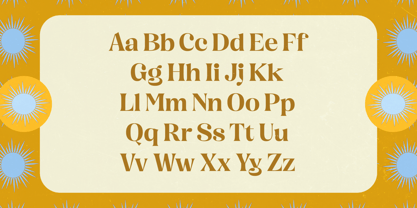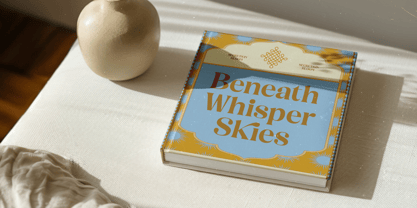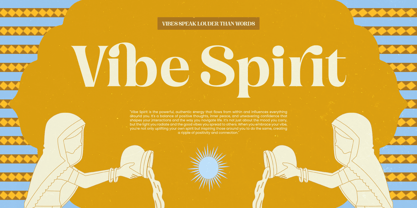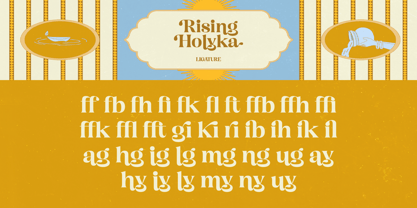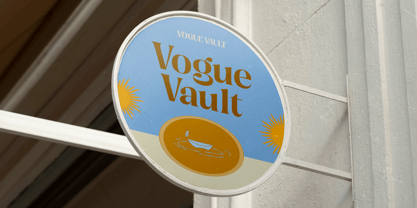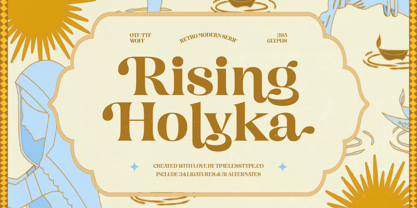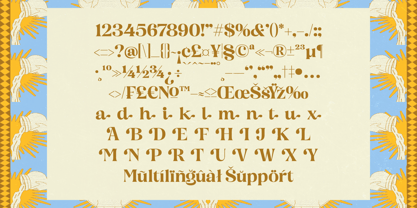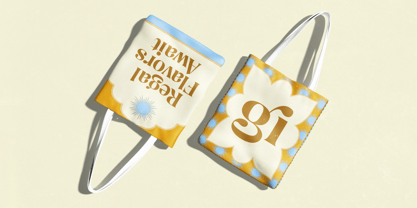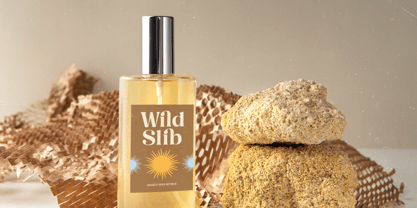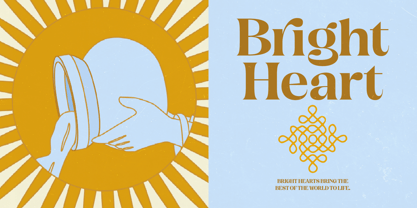
Rising Holyka
Die Schriftfamilie Rising Holyka wurde von Heru Utama Putra entworfen und von Timelesstype Studio veröffentlicht. Rising Holyka enthält 2 Stile und Familienpaketoptionen. Mehr über diese Familie
Elevate your design aesthetic with a timeless fusion of eras. Rising Holyka - Retro Modern Serif masterfully blends the soulful, organic curves of classic typography with the precise structure of modern design. This display serif features lush, flowing letterforms and substantial weight that command immediate attention, making it instantly recognizable. It is the perfect choice for projects demanding both nostalgia and contemporary elegance, delivering a compelling and distinctive visual presence across all mediums.